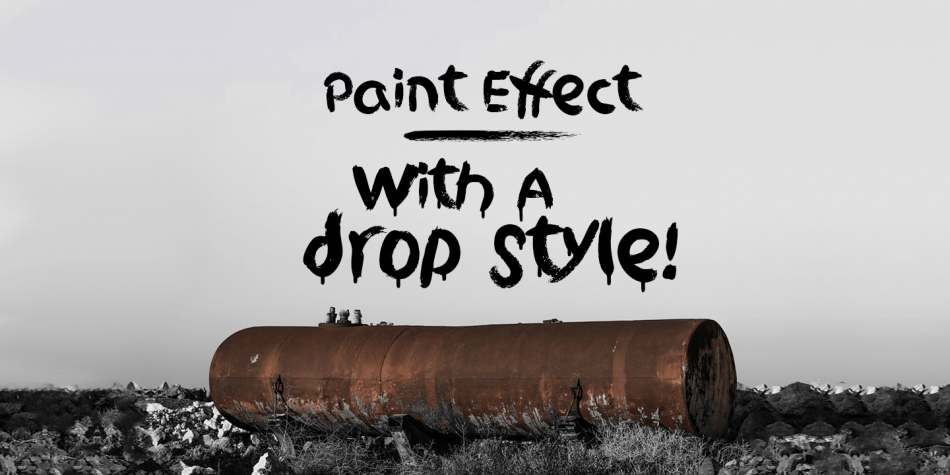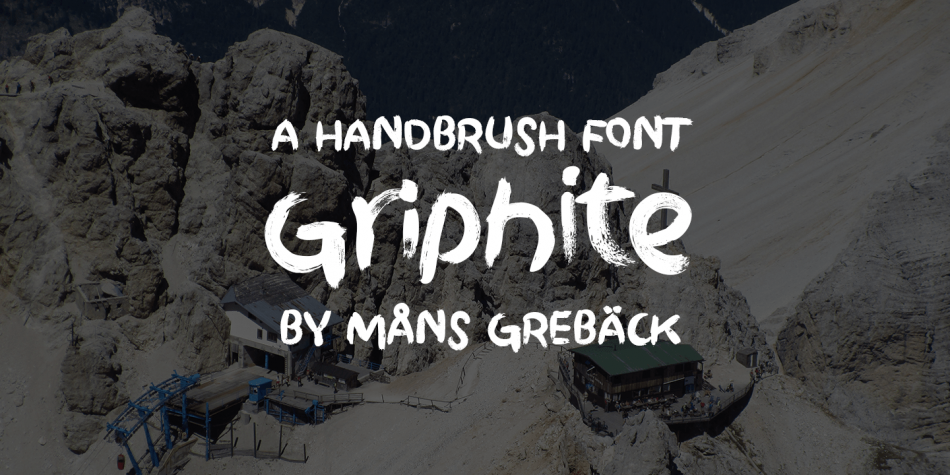
Designed by Måns Grebäck, Griphite is a brush display font family. This typeface has four styles and was published by Måns Grebäck.
Hand drawn by Måns Grebäck with the use of paintbrush strokes, this typeface uses great detail to look like true paint.
Coming in regular, bold, and a drop typeface, this typeface works in all major European and Latin-based languages.